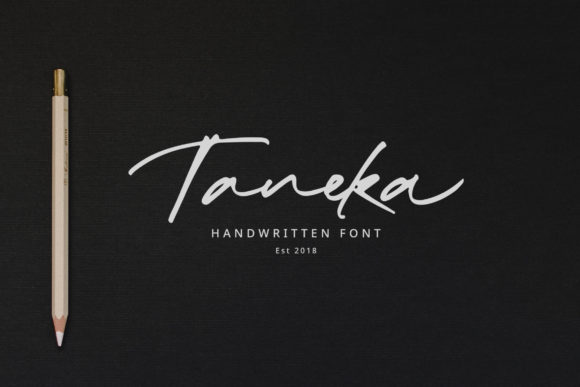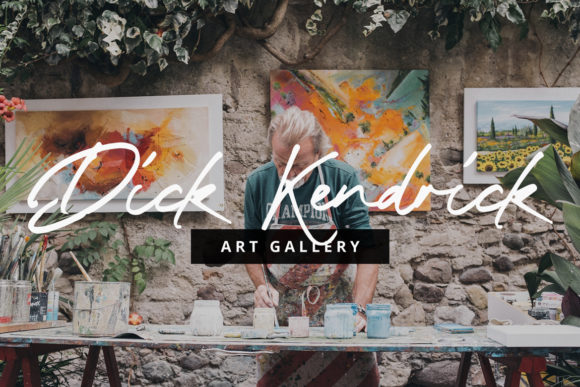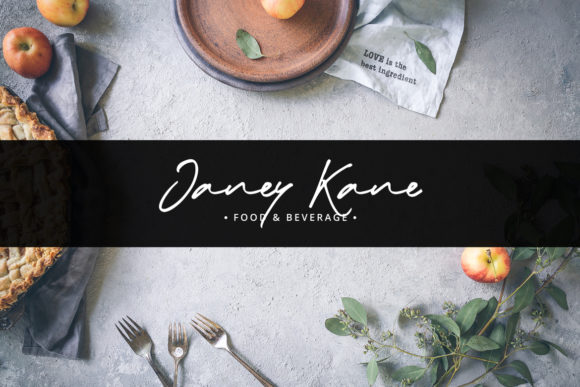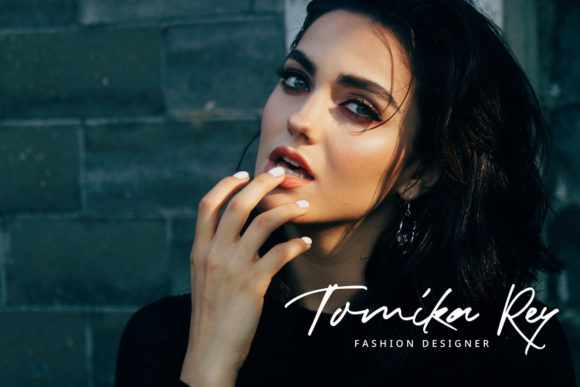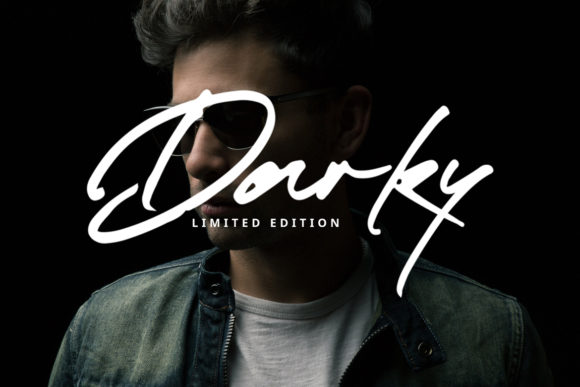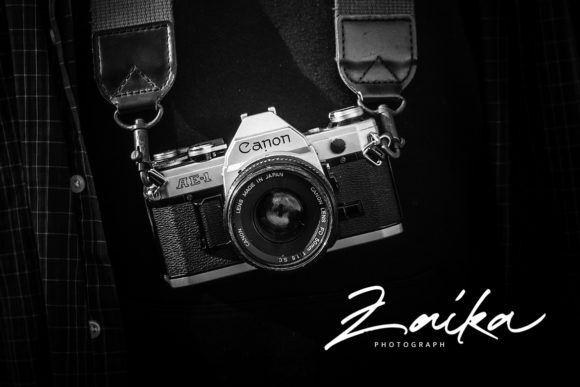
Taneka Font
About Taneka Font
Taneka is a new modern handwritten font. The curves appear without any intentions, just flowing. It’s suitable for every design project you are working on. Starting from logos, shirts, labels and other design needs.